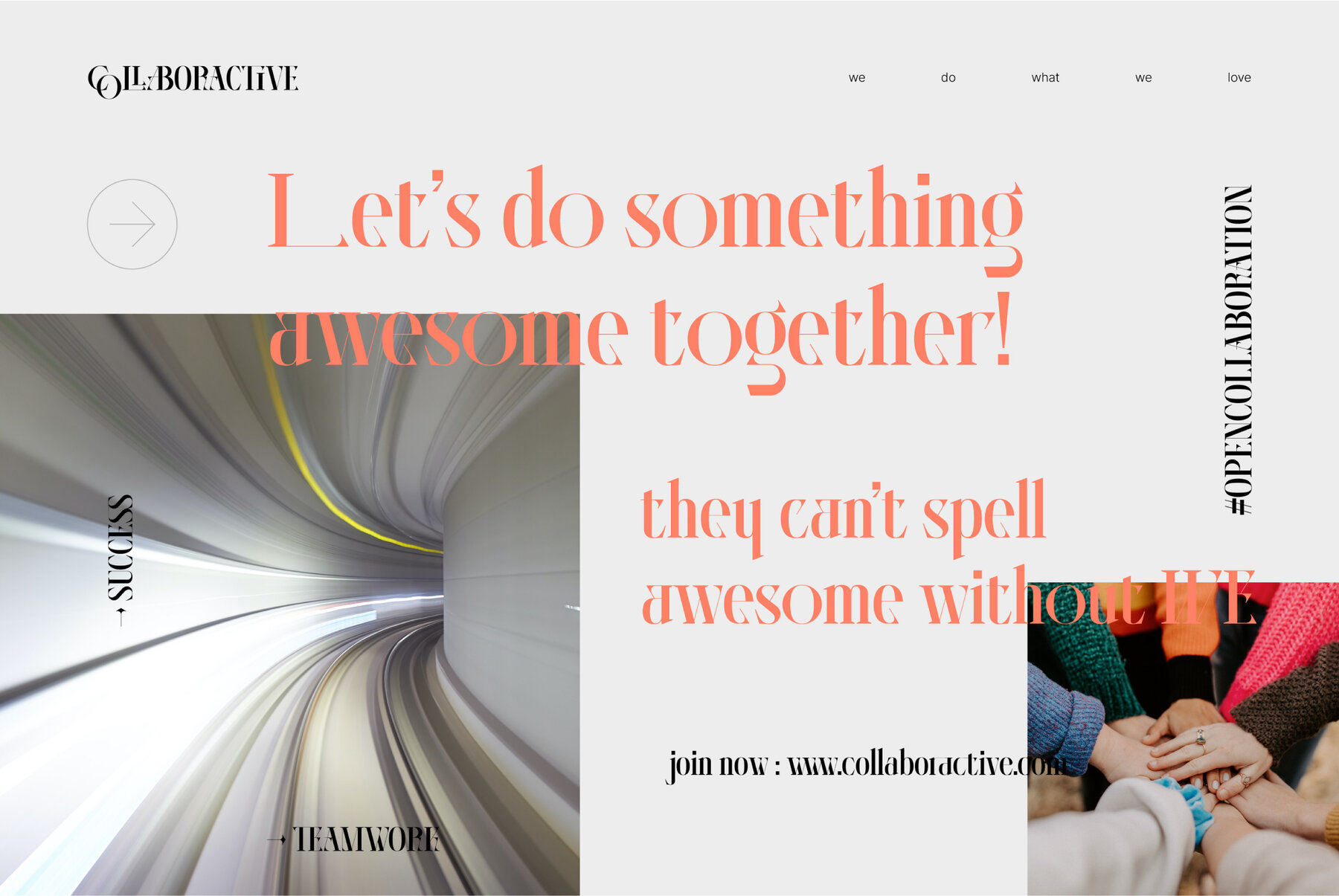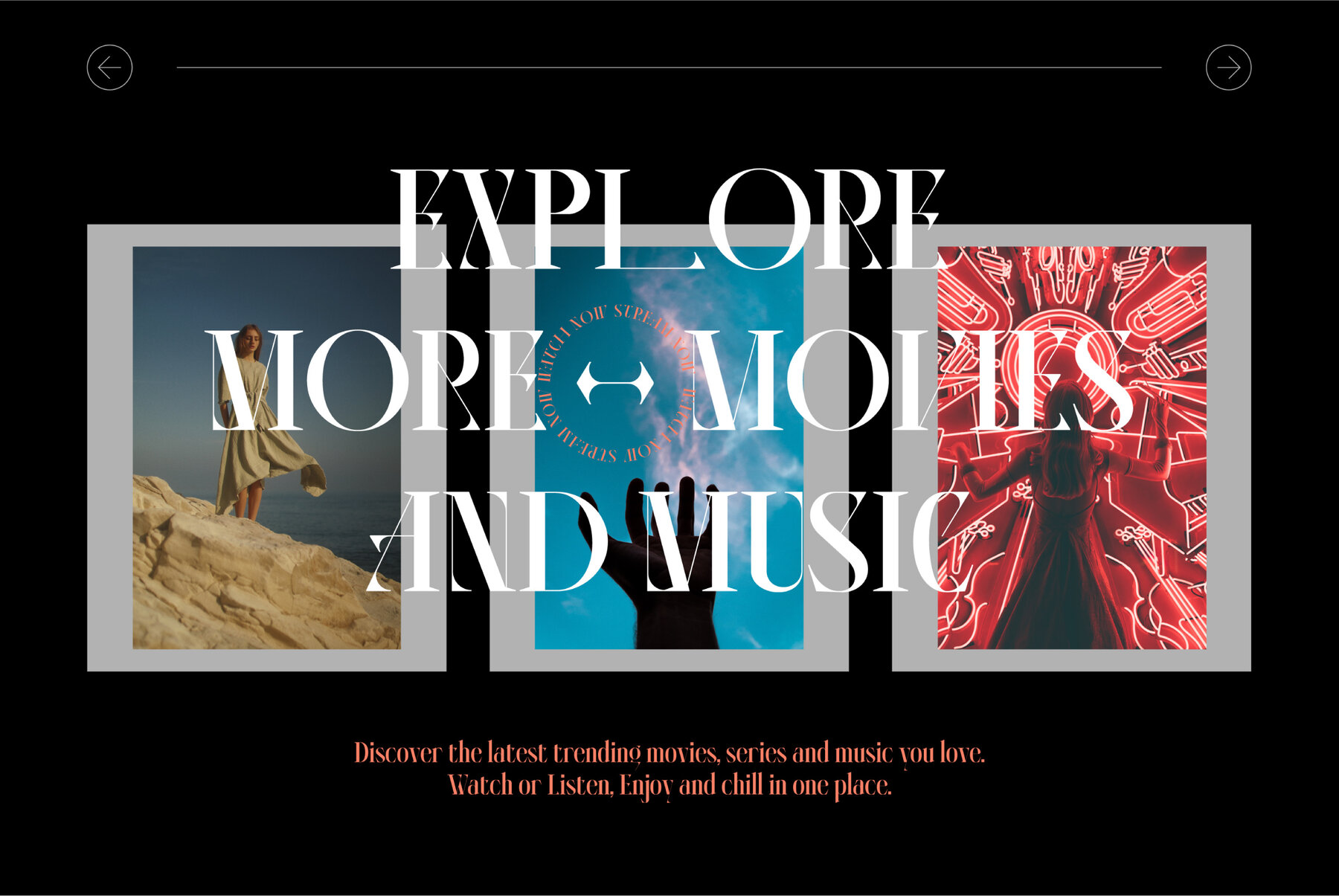
AO Hyperion Font
AO Hyperion Regular
AO Hyperion is a high-contrast serif font that captures attention with its clean, sharp, and elegant lines. This mixed modern-futuristic design brings a fresh perspective to typography, seamlessly blending tradition and innovation. Ideal for graphic designers looking to make a bold statement, AO Hyperion is a typeface rooted in modernity, making it an exceptional choice for a wide range of projects. Features: AO Hyperion thrives in various applications, whether used for headlines, editorial design, monograms, branding, or logos. Its distinct aesthetic also suits poster design and other sophisticated typographic compositions.AO Hyperion: High-Contrast Serif Font